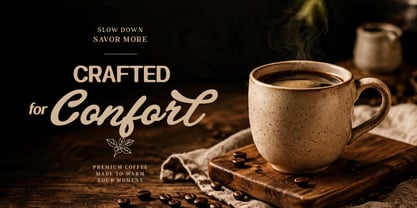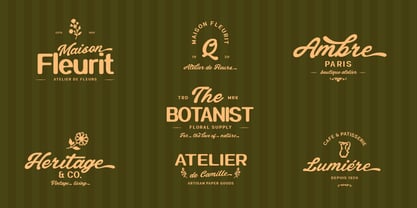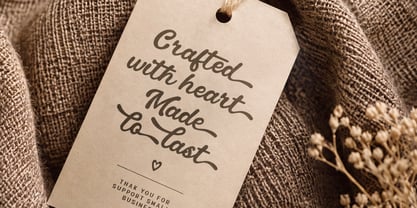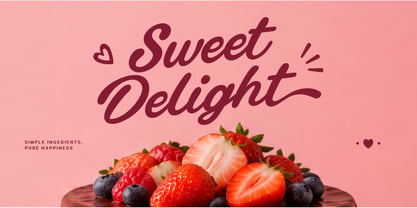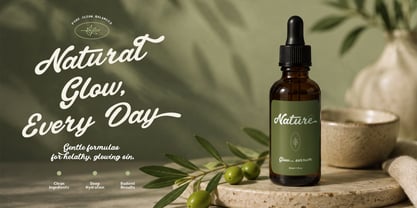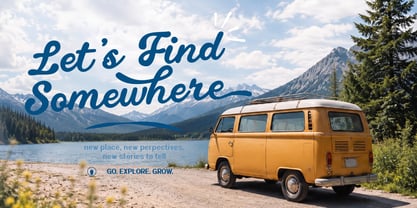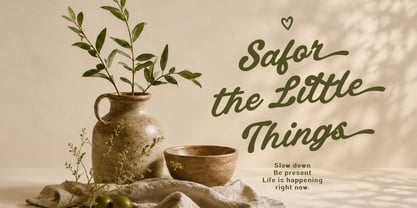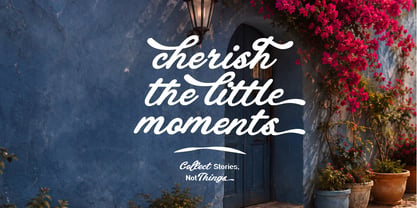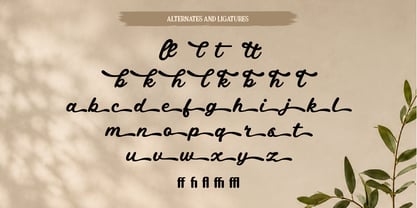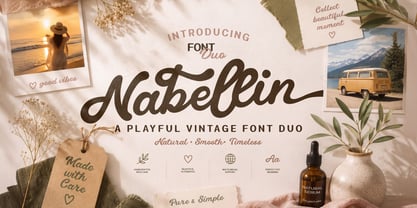
Nabellin
by Nollev
Meet Nabellin — a playful vintage font duo that combines an expressive script with a clean supporting style. Inspired by nostalgic aesthetics and handcrafted details, Nabellin brings warmth, charm, and personality to your designs while keeping a polished and versatile feel. Its flowing script and balanced companion make it ideal for branding, logos, packaging, café and restaurant identities, lifestyle and fashion projects, labels, invitations, posters, and social media content. Nabellin includes smooth ligatures, alternates, multilingual support, punctuation, and numerals, giving you the flexibility to create distinctive and memorable typography with ease.
Designers: Akhmad Hidayat
Foundry: Nollev